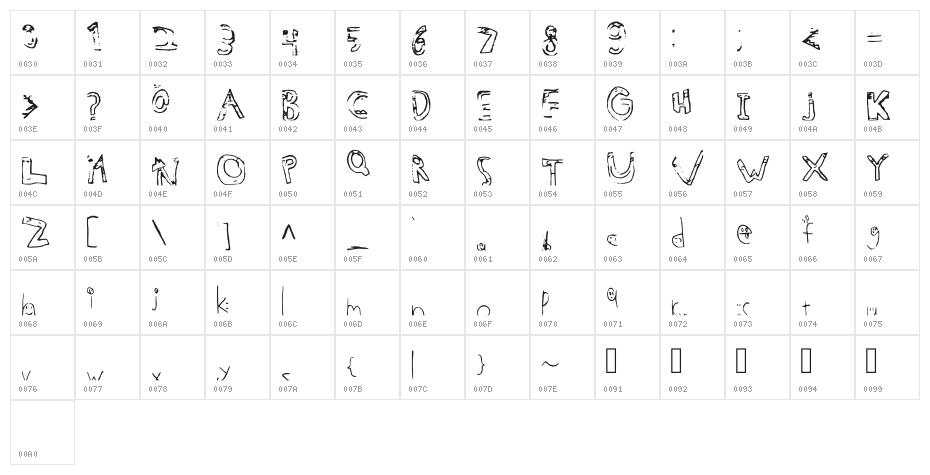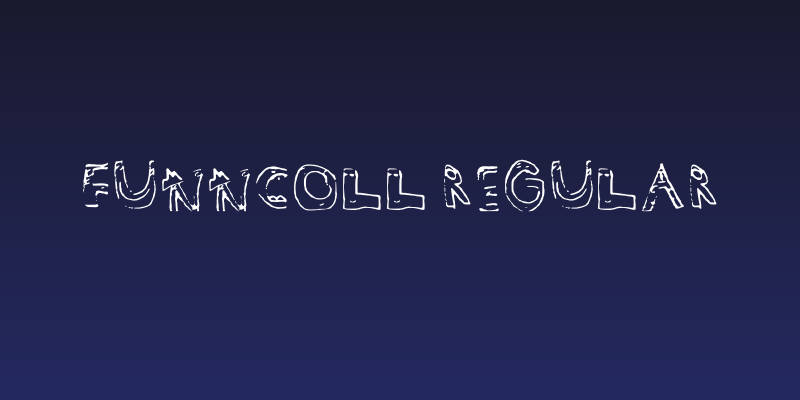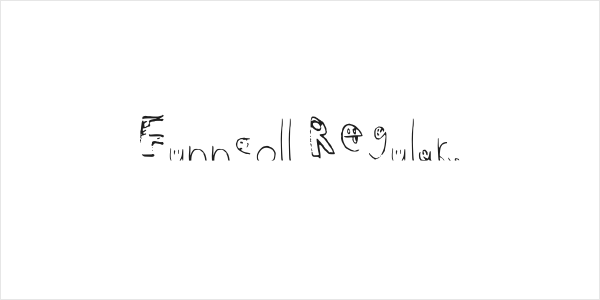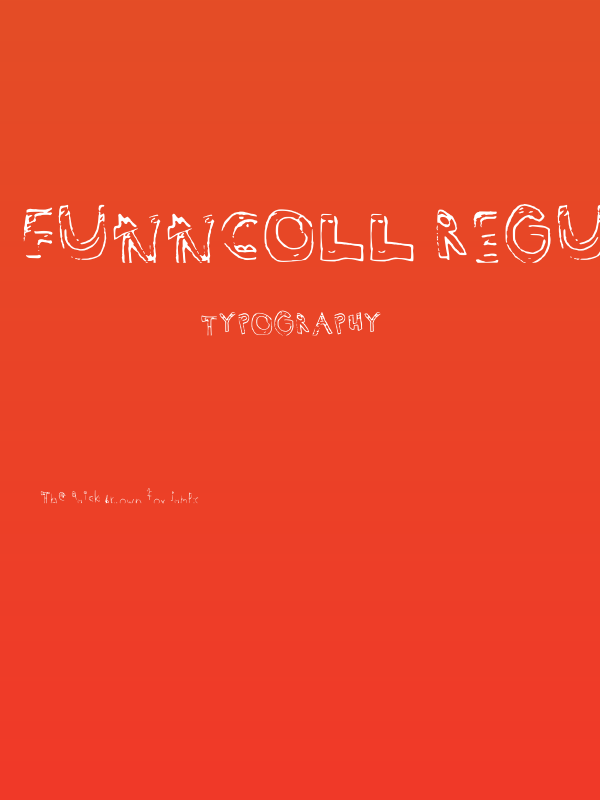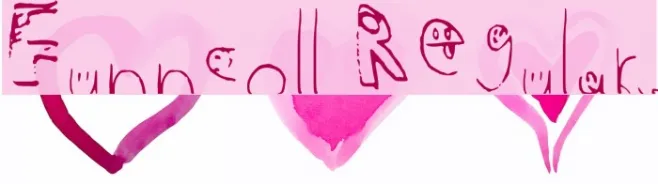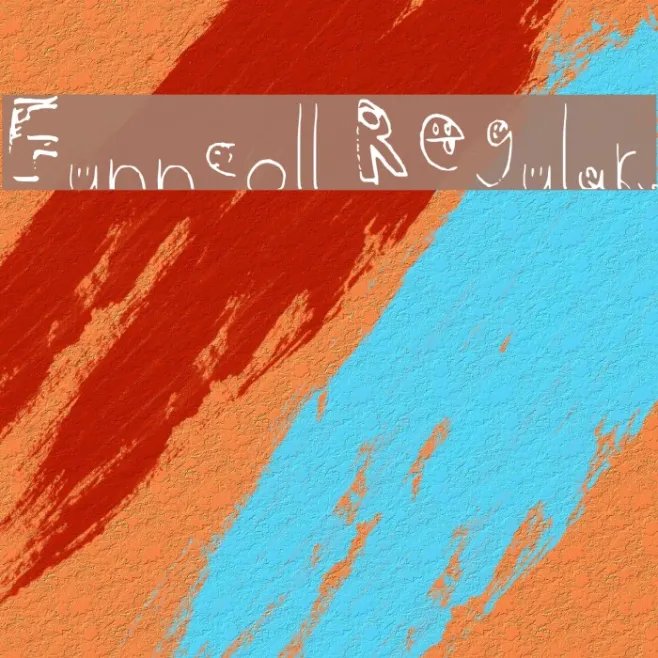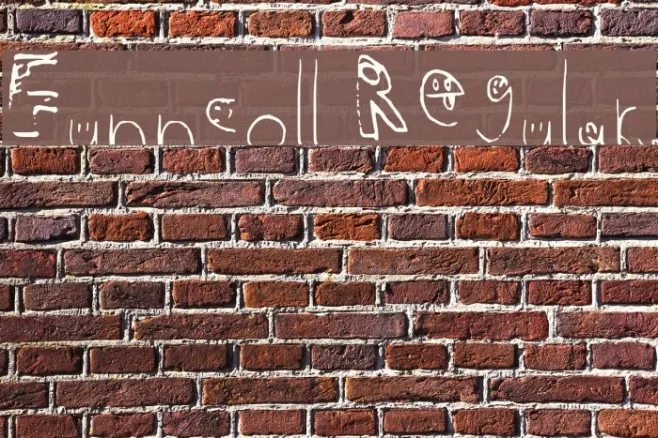
Funncoll Regular Font
Funncoll Regular Description
This font features a playful and whimsical design, characterized by its irregular and hand-drawn appearance. The letters have a quirky, cartoonish style with uneven lines and varying thicknesses, giving it a lively and dynamic feel. The uppercase and lowercase letters maintain a consistent theme of spontaneity, with some characters incorporating unique embellishments and playful elements. Numbers and special characters follow the same artistic approach, adding to the overall charm. This font exudes a sense of fun and creativity, making it ideal for projects that require a lighthearted and informal touch.
| Overall Style | Whimsical |
| Proposed Projects | Ideal for children's books, comic strips, playful branding, and creative posters. |